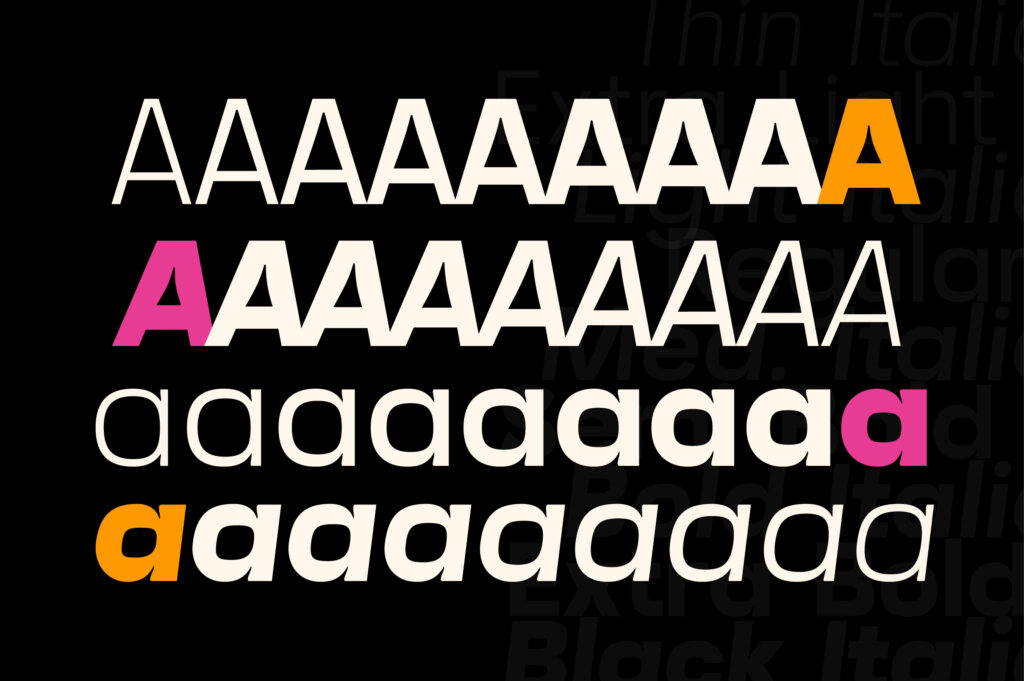
Fonts are more than visual elements — they’re emotion, rhythm, and tone, all packed into shapes we call letters. Every curve and line carries a message. That’s why choosing the right typeface isn’t just a design decision — it’s a storytelling one.
At Lettertype Studio, we believe typography has a voice. Some fonts whisper sophistication, others shout innovation, while a few simply hum a timeless melody of trust. When done right, your chosen font becomes a silent ambassador for your brand.
🧠 Understanding Your Brand Personality
Before diving into endless font catalogs, pause and ask: What do I want my brand to feel like?
A serif font feels elegant, classic, and trustworthy — perfect for editorial, luxury, or cultural brands.
A sans-serif communicates clarity, minimalism, and modernity — great for startups, agencies, and tech-forward companies.
A script or handwritten font adds warmth, craft, and personal touch — ideal for lifestyle or creative projects.
Typography should mirror your brand’s energy. Just like how Cardival brings luxury charm or Nalte conveys geometric confidence, the right typeface can instantly elevate perception.
⚙️ Practical Tips for Making the Right Choice
1️⃣ Prioritize readability. Fancy doesn’t mean better. Always test your font at multiple sizes.
2️⃣ Think scalability. Whether on a billboard or phone screen, your font should stay recognizable.
3️⃣ Use contrast wisely. Pair a bold display font with a calm sans-serif to create rhythm and balance.
4️⃣ Test across media. Print, web, packaging — consistency matters everywhere.
When your typography aligns with your brand’s story, everything else — color, imagery, tone — falls into place.
💬 Final Thoughts
Typography is a language in itself. Once you understand how to use it, you’ll realize that a font isn’t just chosen — it’s felt.